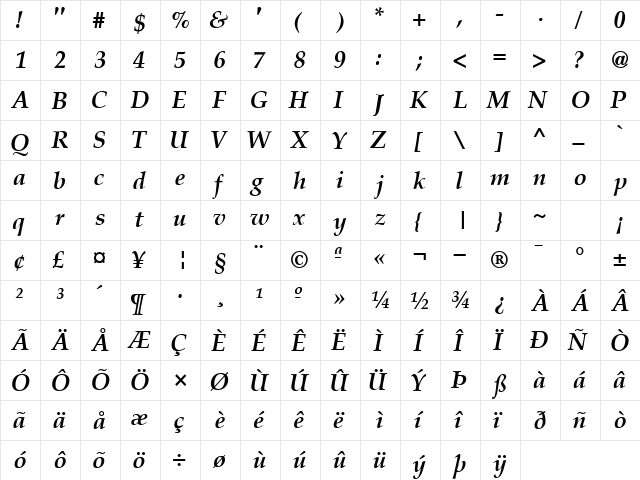
CriteriaSSK BoldItalic Font Preview
CriteriaSSK BoldItalic
Design Context for CriteriaSSK Typeface
CriteriaSSK is a composed and adaptable typeface that performs quietly and consistently across a wide range of design contexts. Its italic angle brings a sense of urgency and motion to the letterforms. Its bold stroke weight gives it real presence on the page.
Pro Tip: Use CriteriaSSK for emphasis, pull quotes, and subheadings where its slanted energy can add rhythm to the layout.